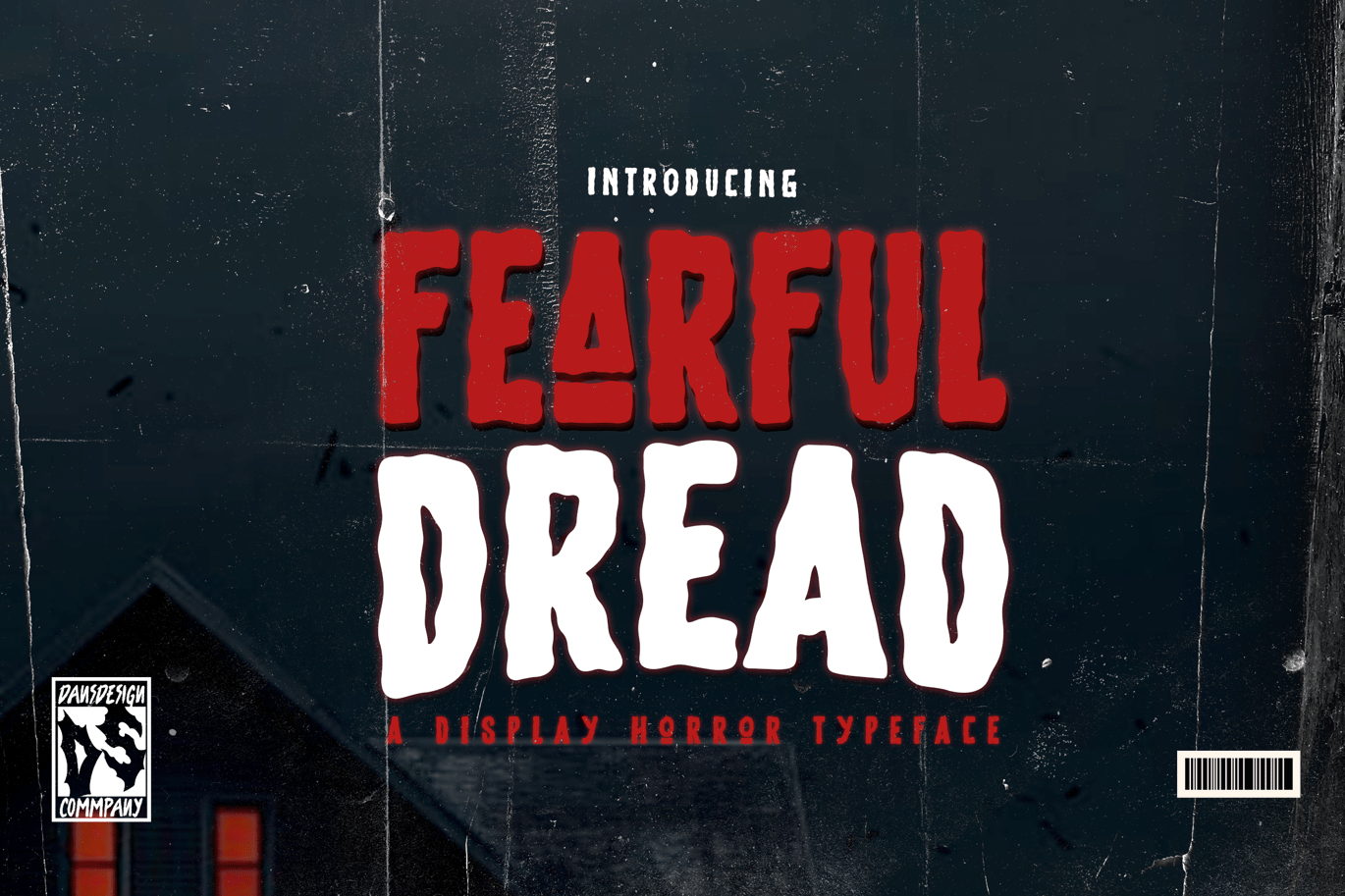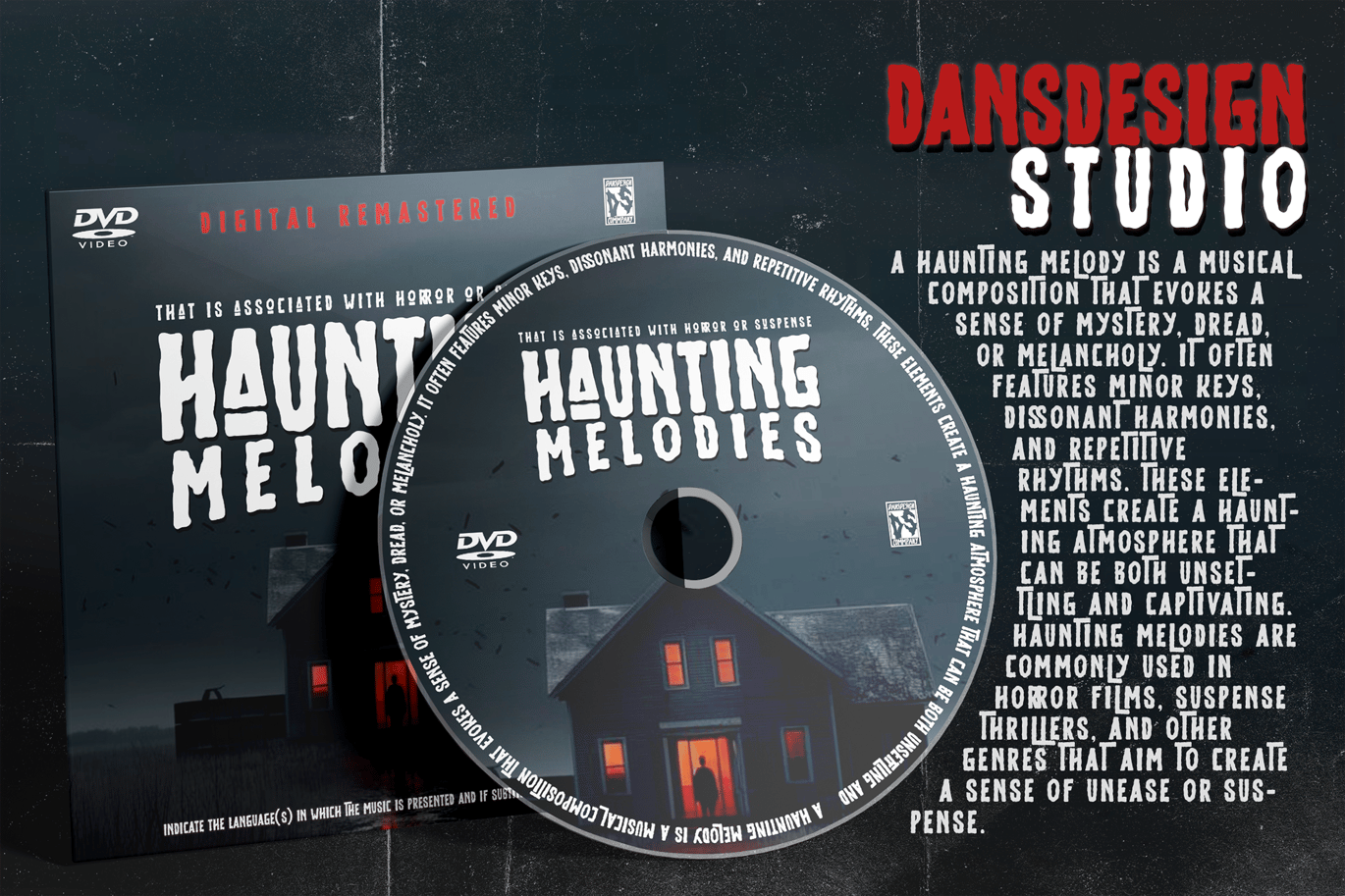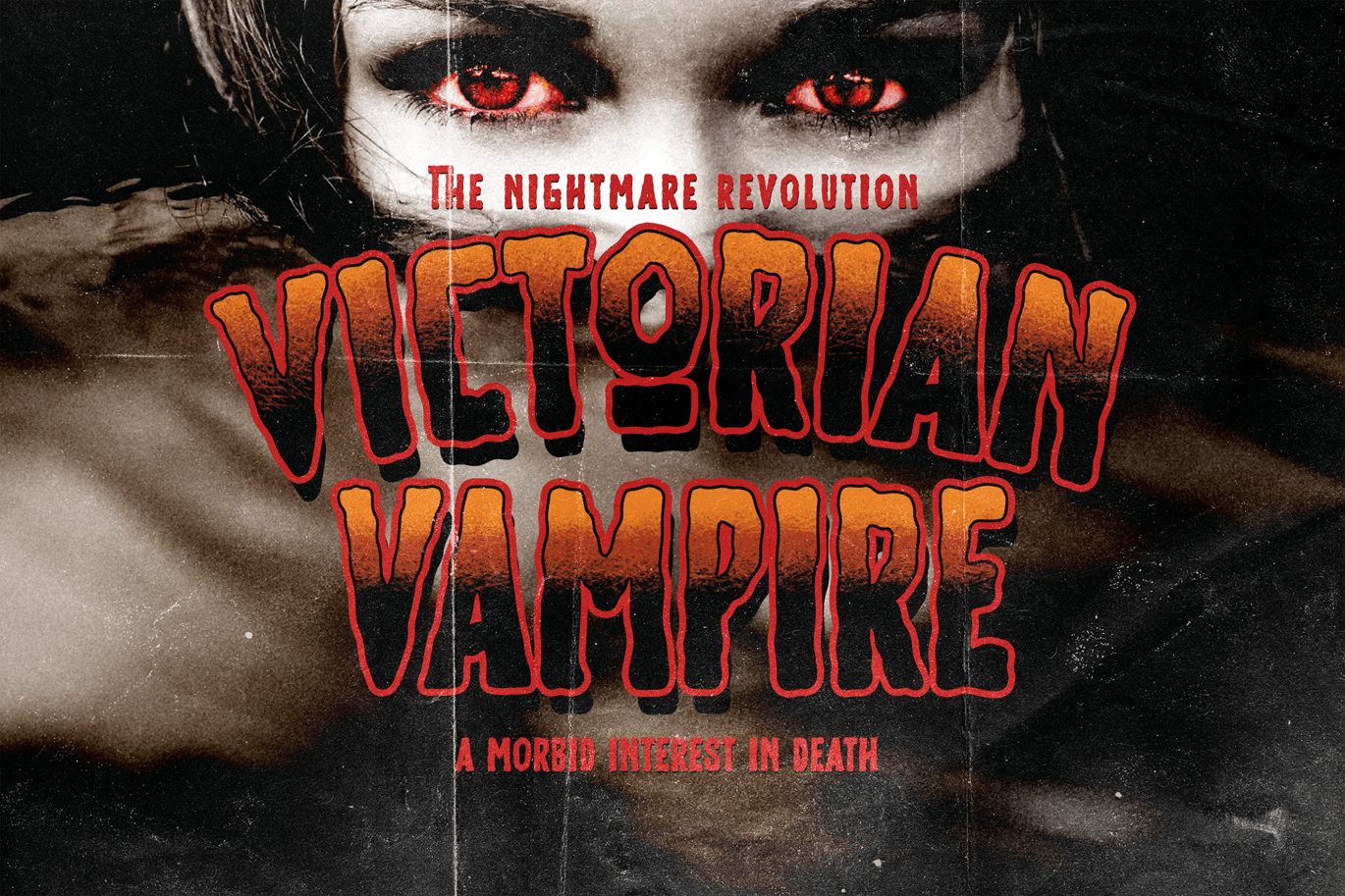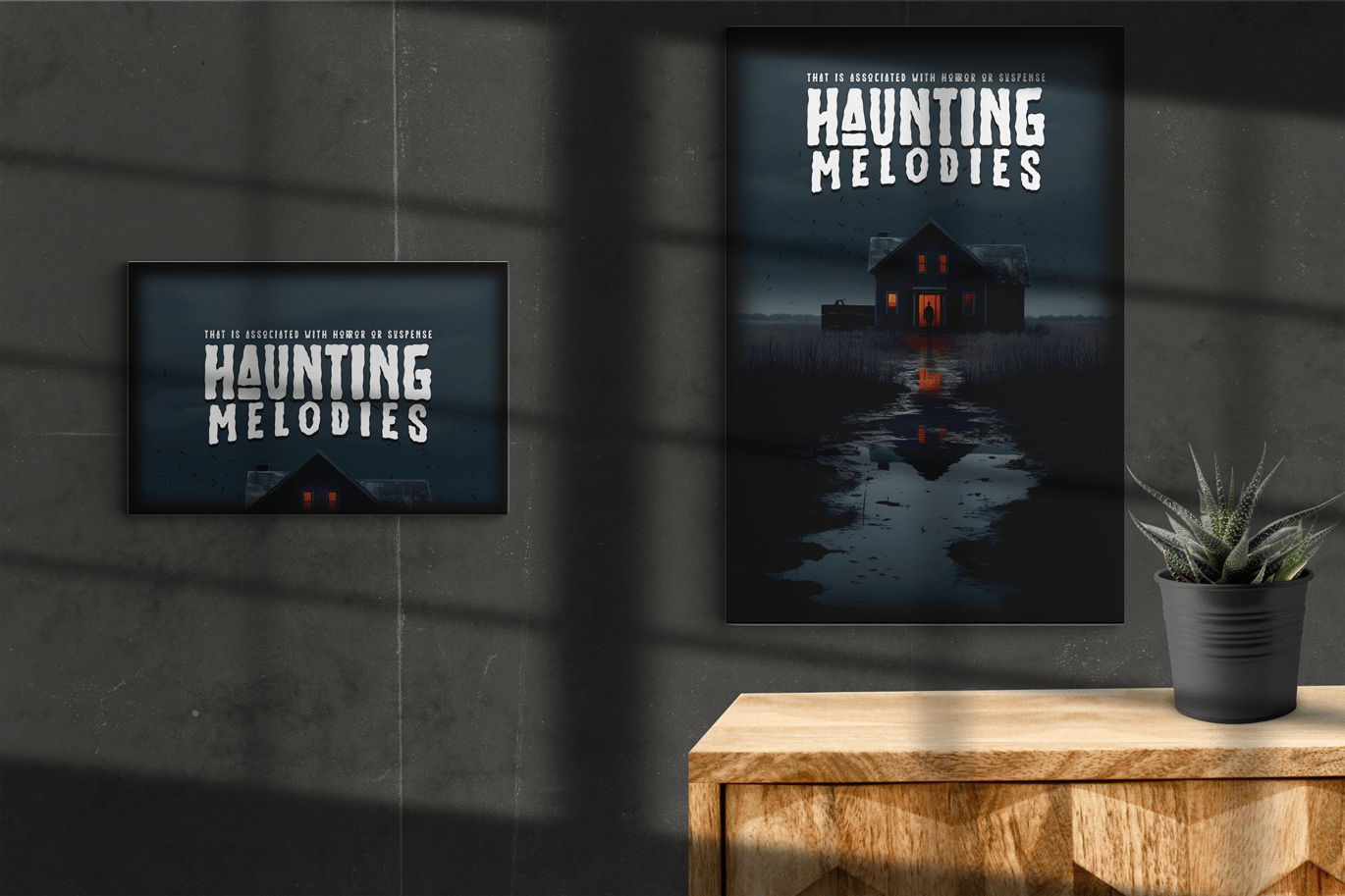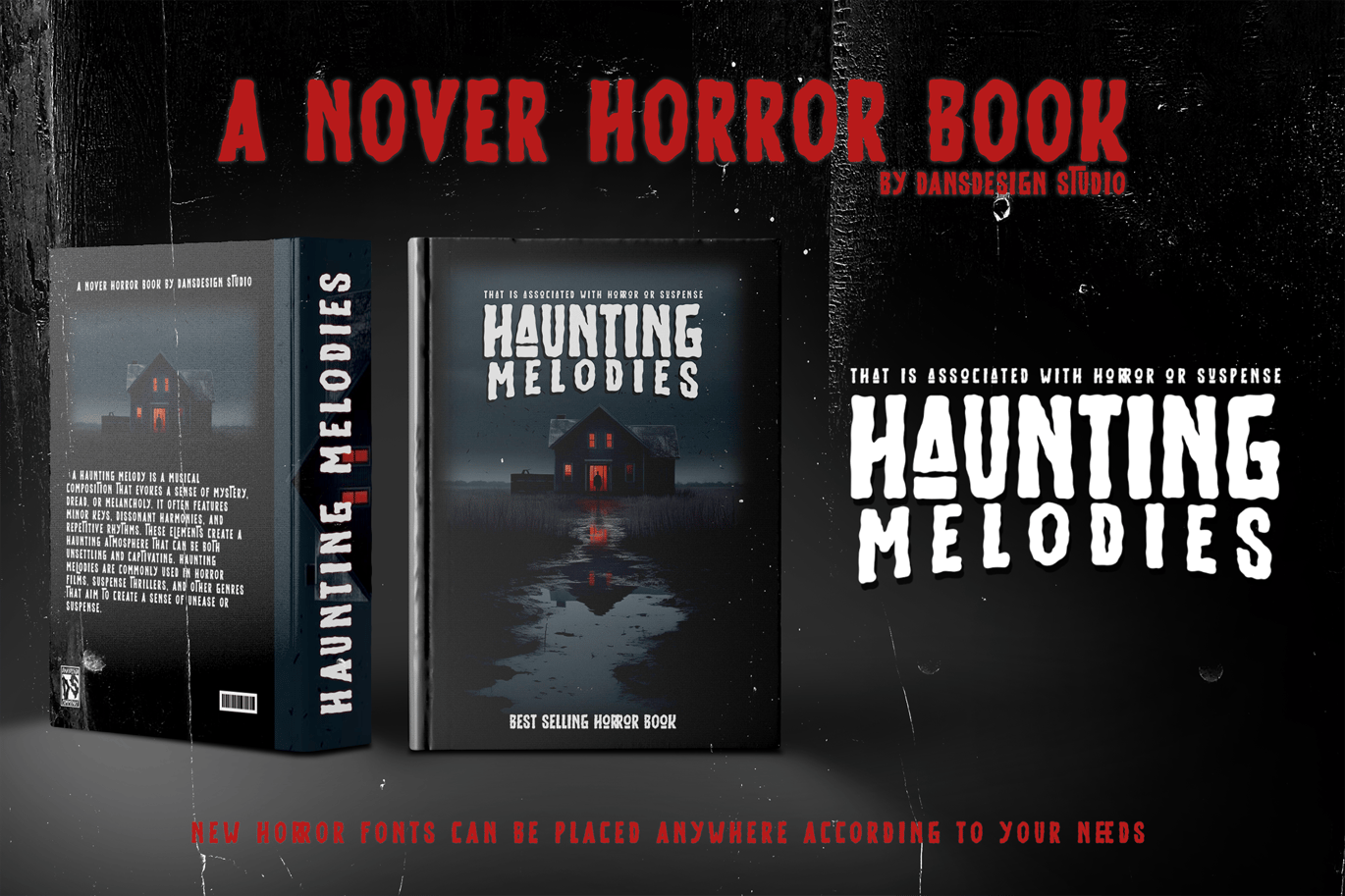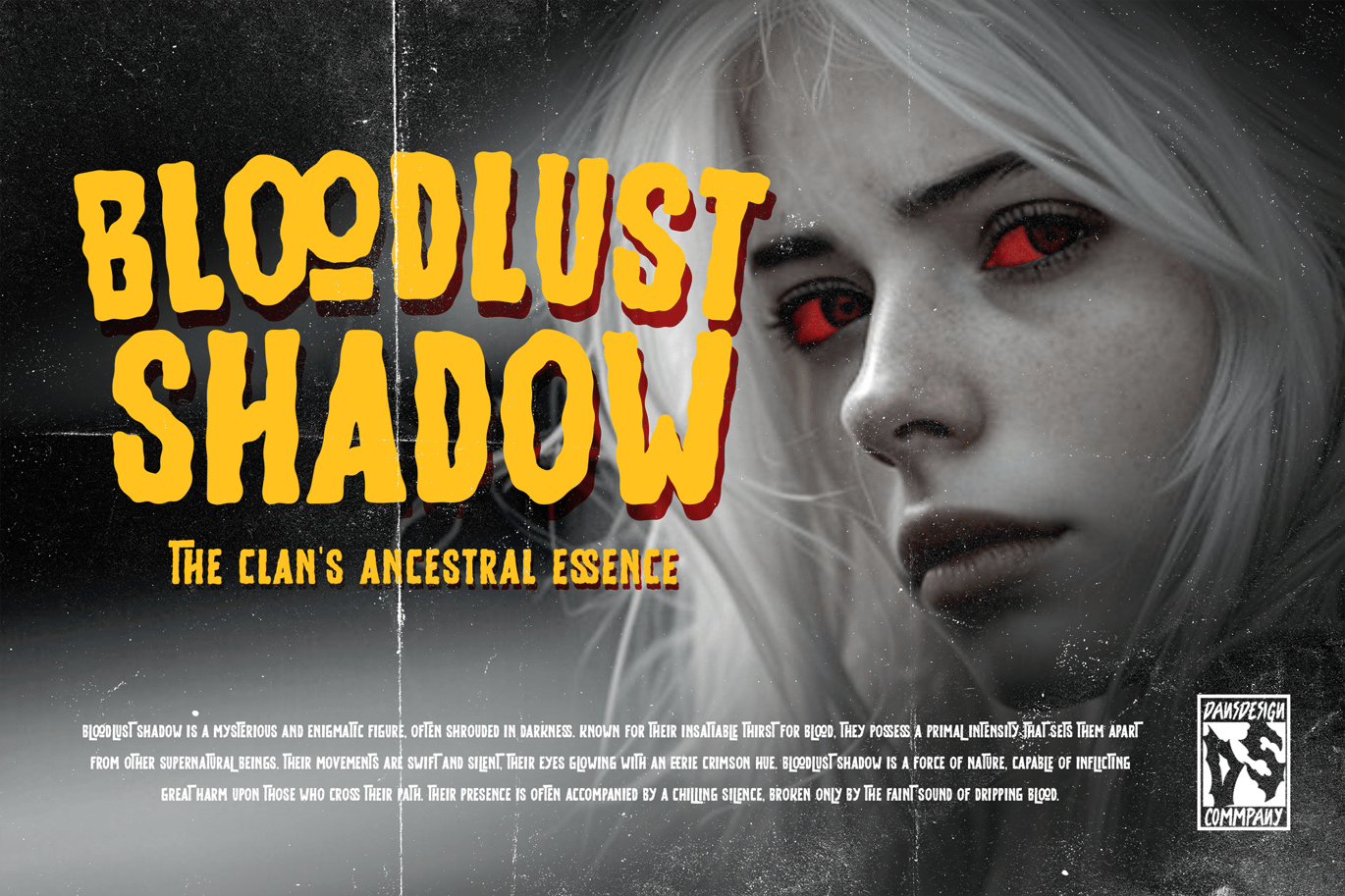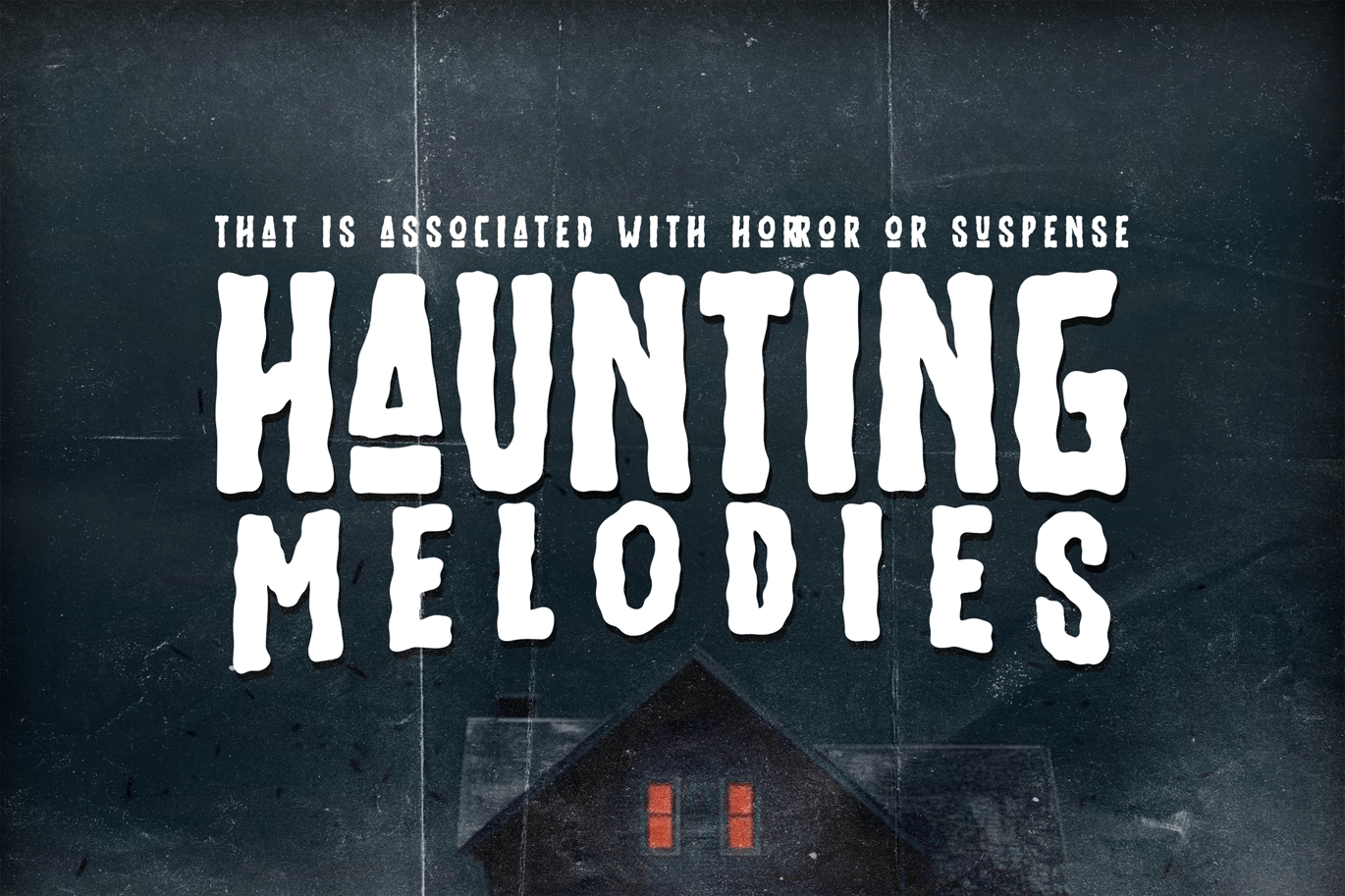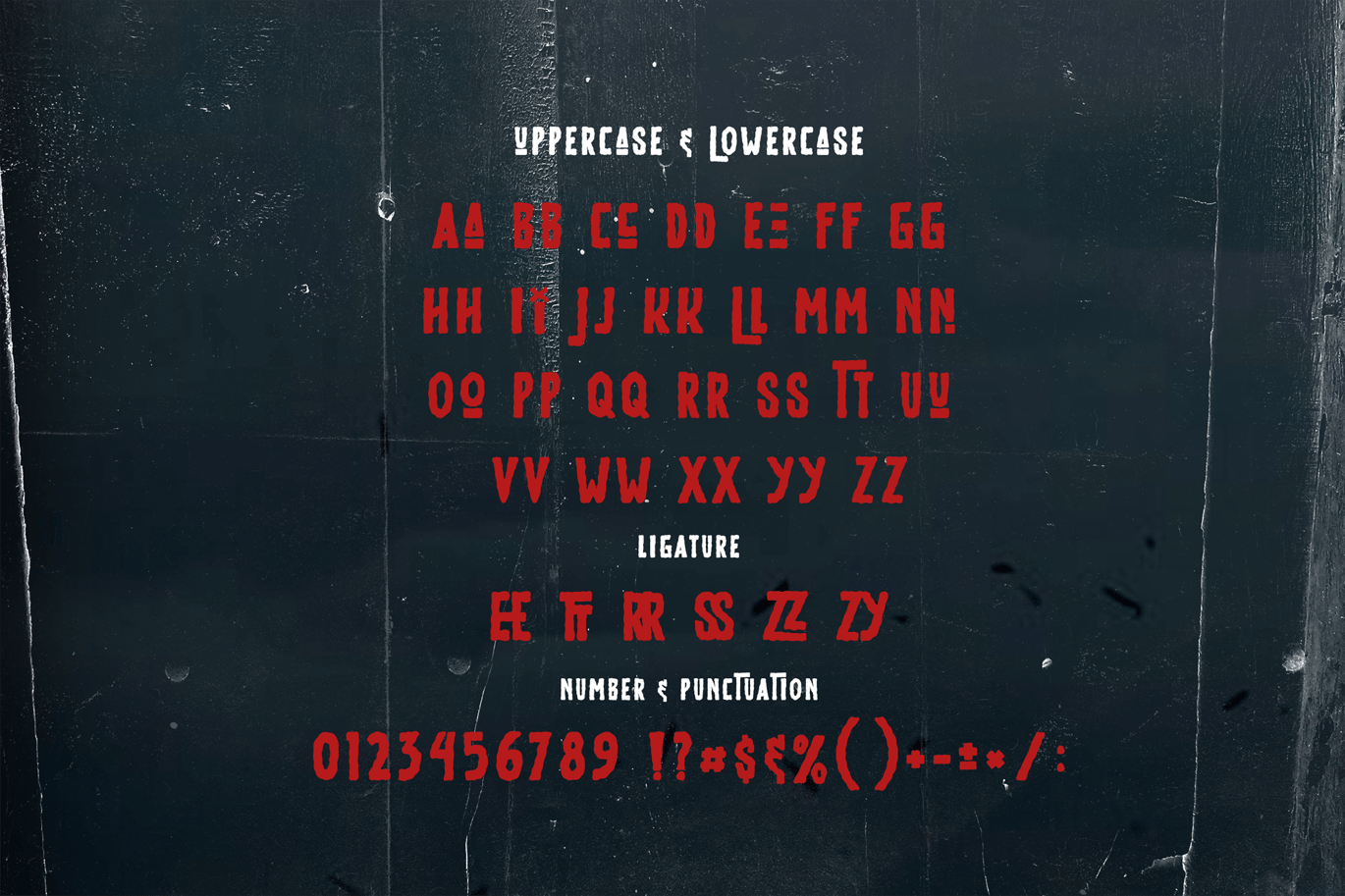
Fearful Dread Halloween Horror Melted Display Font
Fearful Dread Halloween Horror Melted Display Font is  a distinct, highly detailed. Marker Display Font.
It would make a great choice for exquisite retro-urban designs, business branding, logos, Apparel designs, and more.